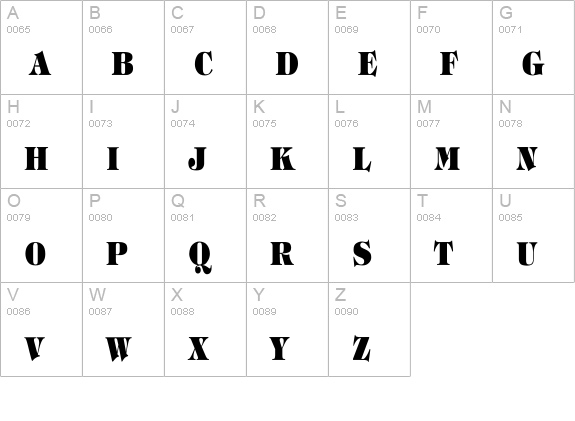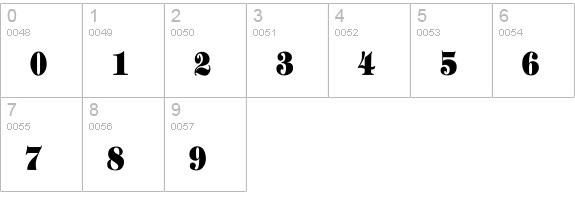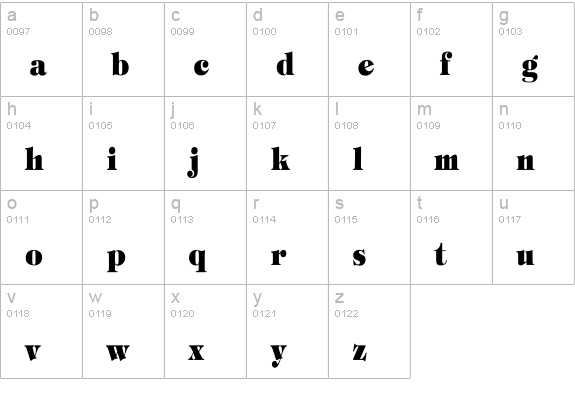
Tiffany-Heavy-Bold Cn is a heavy, high-impact variant in the Tiffany typeface family \xE2\x80\x94 well suited to high-impact headlines, posters, and display advertising.
Tiffany-Heavy-Bold Cn is a powerful and commanding font that exudes confidence and strength. With its bold and heavy design, this font demands attention and makes a bold statement. It is perfect for headlines, logos, and any other design project that requires a strong and impactful visual presence. The characters in Tiffany-Heavy-Bold Cn are thick and sturdy, with sharp edges that give it a modern and sleek look. The font's bold weight adds an extra level of intensity, making it stand out on any page. Whether used for print or web, this font is sure to leave a lasting impression. One of the best things about Tiffany-Heavy-Bold Cn is that it is available for free download at FontsMarket.com. This means that anyone can access this powerful font without having to spend a dime. It is a great opportunity for designers, students, and anyone else who needs a high-quality font without breaking the bank. With Tiffany-Heavy-Bold Cn, the possibilities are endless. Let your creativity run wild and make a statement with this striking font. Download it for free at FontsMarket.com and start adding a touch of boldness to your designs today.